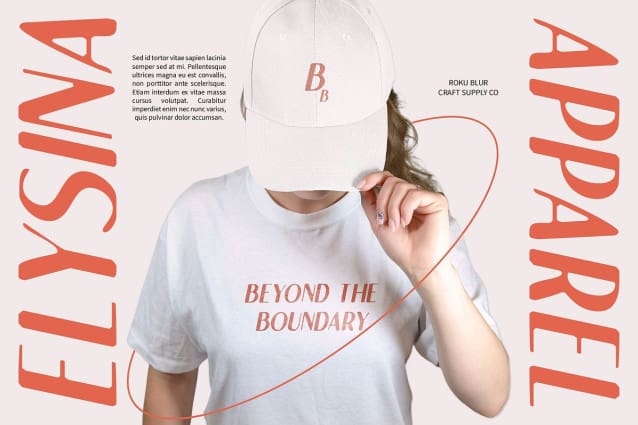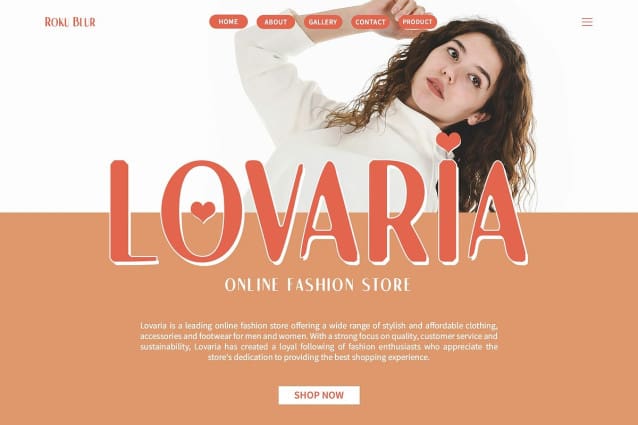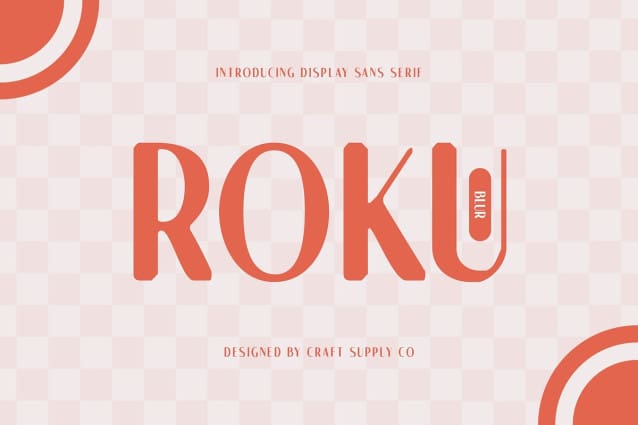
Roku Blur Font
Roku Blur Font is a modern sans serif font with a blur effect that offers an elegant and contemporary look. The blur effect adds an artistic and unique dimension, creating a soft and appealing impression ideal for designs requiring a classy yet innovative aesthetic.
With its elegant design and blur effect, Roku Blur is perfect for classy and creative designs. This font ensures your projects stand out with a refined and original aesthetic, making it suitable for posters, invitations, branding, and other creative projects.
Roku Blur enhances posters and branding materials with its sophisticated appearance. Its contemporary style and blur effect create a soft visual appeal, ensuring your designs convey elegance and originality with a modern twist.
Versatile and distinctive, Roku Blur adapts seamlessly to various creative projects. Whether used in digital or print media, this font provides a luxurious and innovative touch that enhances the overall impact of your designs.